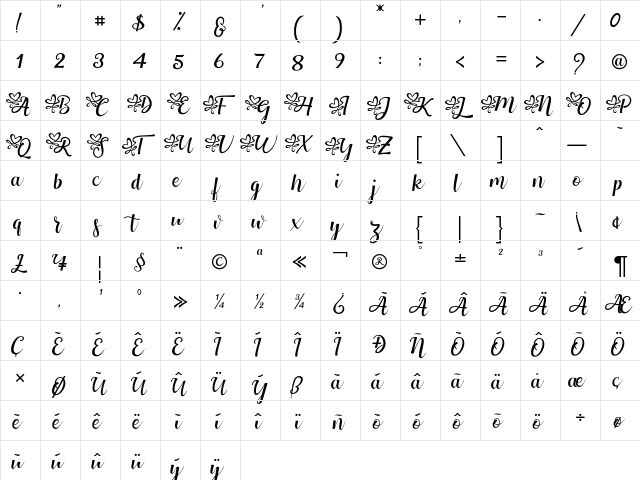
Tiberias Regular
Design Context for Tiberias Typeface
Tiberias is a composed and adaptable typeface that performs quietly and consistently across a wide range of design contexts.